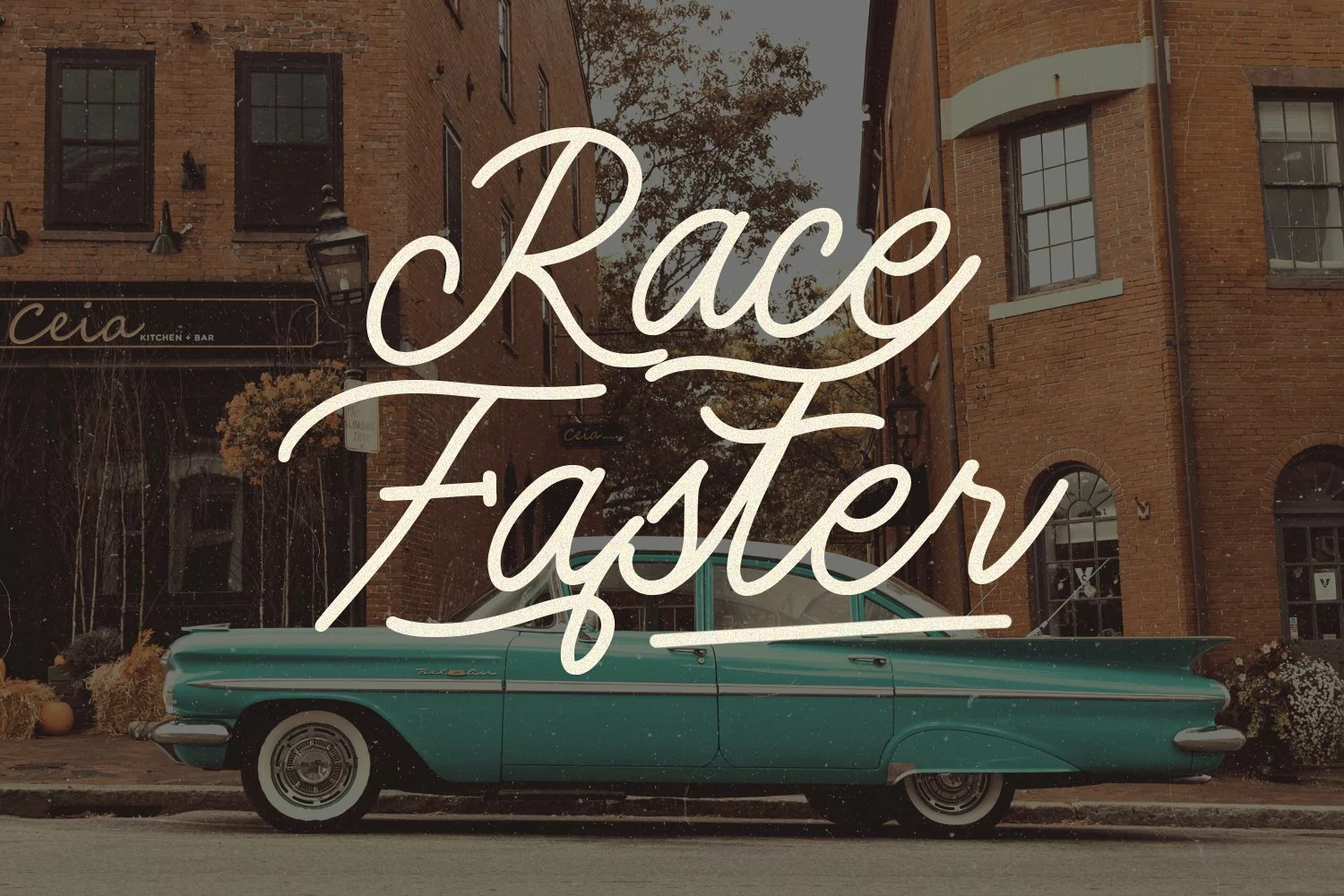
Monology Swash Script Vintage Font
Give your designs an authentic handcrafted feel. "Monology" is perfectly suited to signature, stationery, logo, typography quotes, magazine or book cover, website header, clothing, branding, packaging design and more.